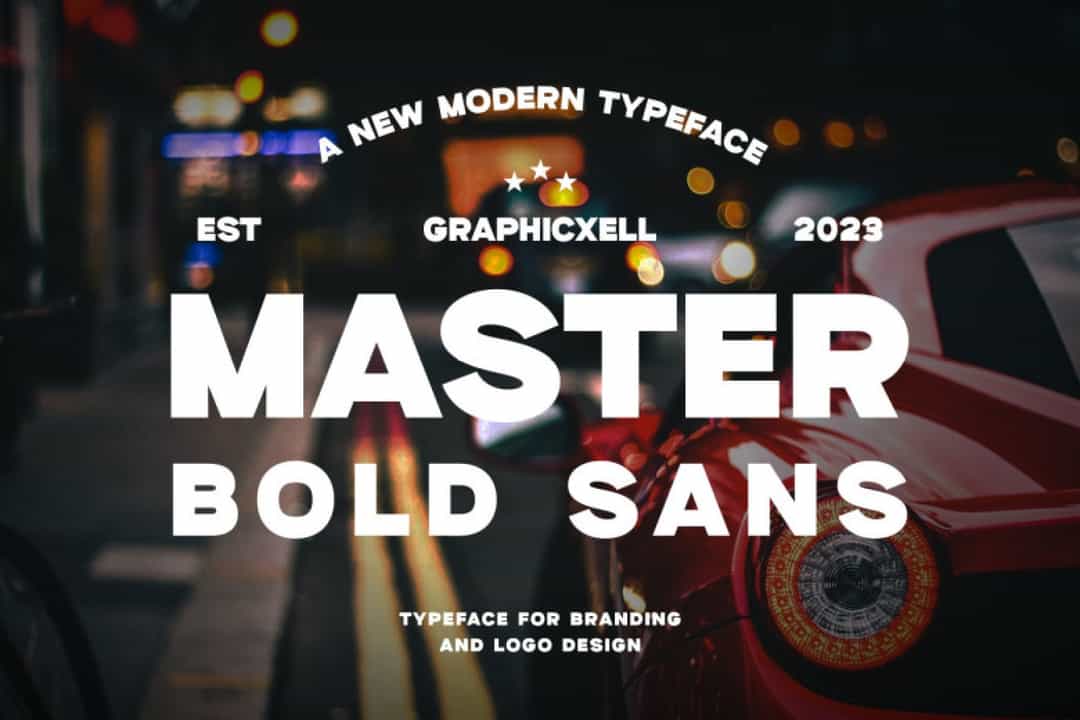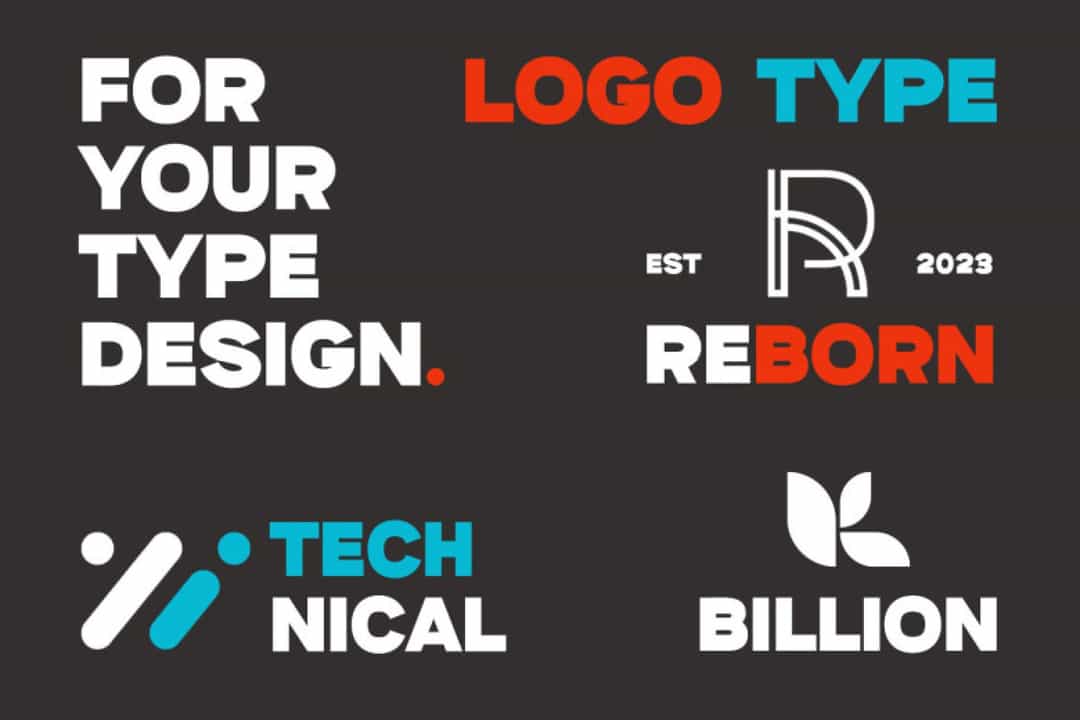
Master Bold Sans Font is perfect for giving designs an energetic and modern appearance. Featuring clean lines and an aggressive style that sets it apart from others, this versatile font piece can be used across many design-related projects.